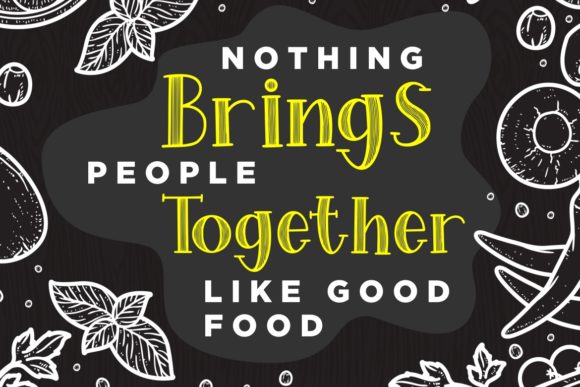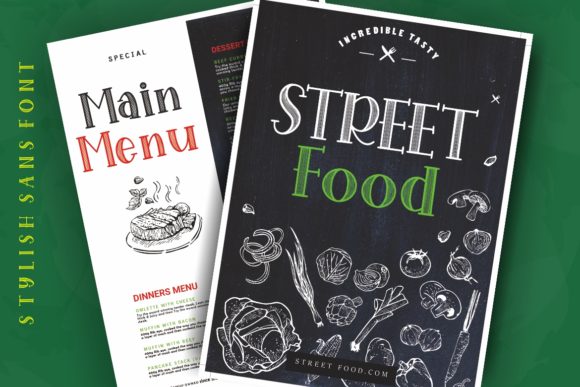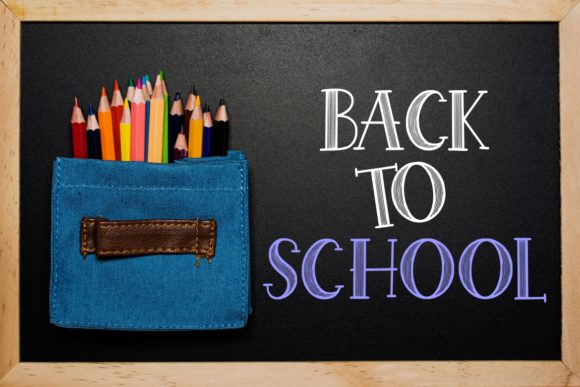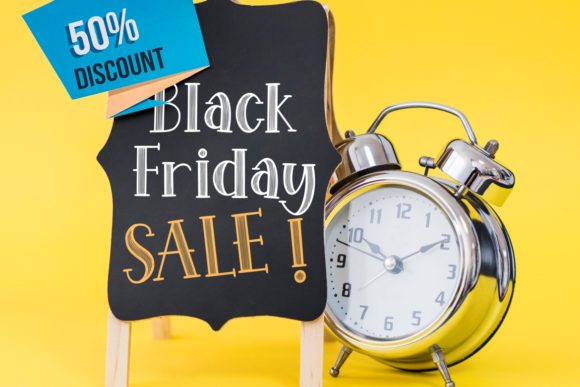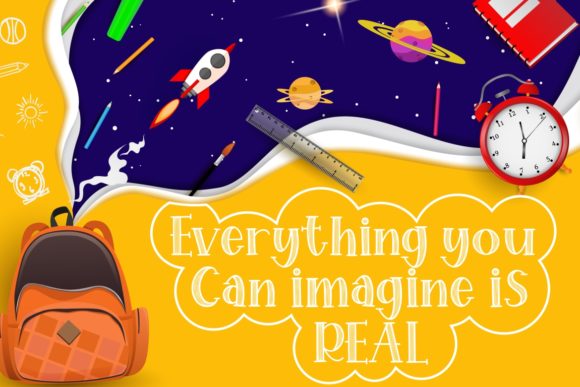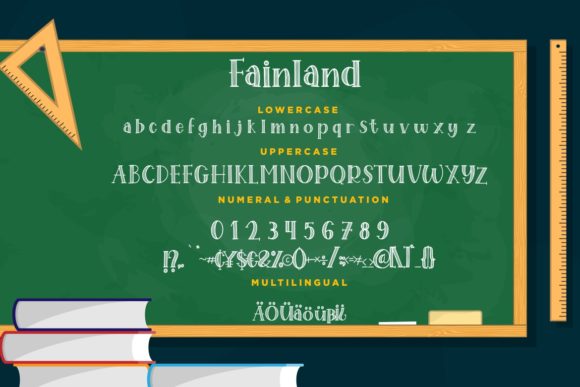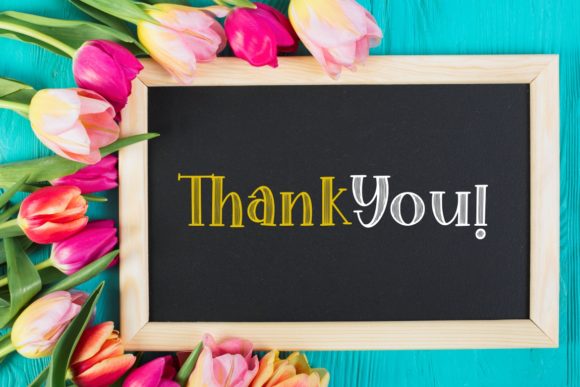
HomeScript FontsFainland Font Script Fonts Fainland Font FacebookXPinterestWhatsApp Fainland Font Poster 2 Fainland Font Poster 3 Fainland Font Poster 4 Fainland Font Poster 5 Fainland Font Poster 6 Fainland Font Poster 7 Fainland Font Poster 8 About Fainland Font Fainland is a stylish and friendly script with a bold vibe. It’s perfect for any school-themed projects! DOWNLOAD ON CREATIVE FABRICAThis font is sold and delivered by Creative Fabrica. Font Canyon may earn a commission if you buy through this link. People also explored Wilyam Stanford Font White Orchid Font Frank Martin Font Ferralist Font Christmas Present Duo Font Arithysh Eternal Font Saturday Duo Font Yong Saskia Font Breathing Font 387 0 TagsFainland Font Previous articleBeach Party FontNext articleRuincity Font LEAVE A REPLY Cancel reply Comment: Please enter your comment! Name:* Please enter your name here Email:* You have entered an incorrect email address! Please enter your email address here Website: Save my name, email, and website in this browser for the next time I comment. Personal Use Free Waverly Date Personal Use Free Read more about this font Loving You Personal Use Free Read more about this font Critical Personal Use Free Read more about this font Ciggs Personal Use Free Read more about this font BLOG To increase your work productivity, choose the most readable fonts. In today's fast-paced work environment, where digital communication and information consumption are integral to our daily routines, the choice of fonts can significantly impact... Free Fonts Risk: Why Free Fonts Can Be Dangerous for Designers Best Fonts for T-Shirt Design – Top 2025 Picks 5 Fonts That Will Dominate Design Trends in 2026